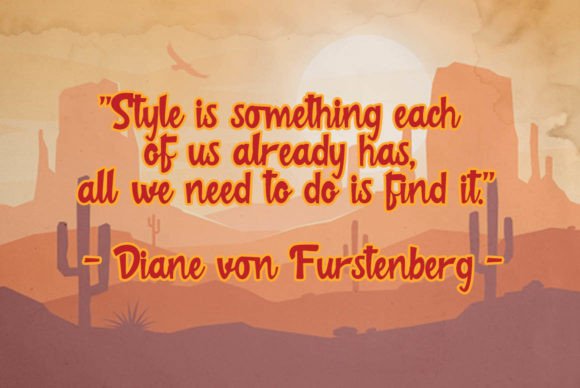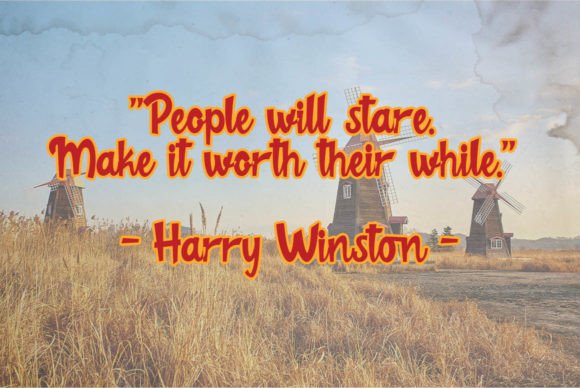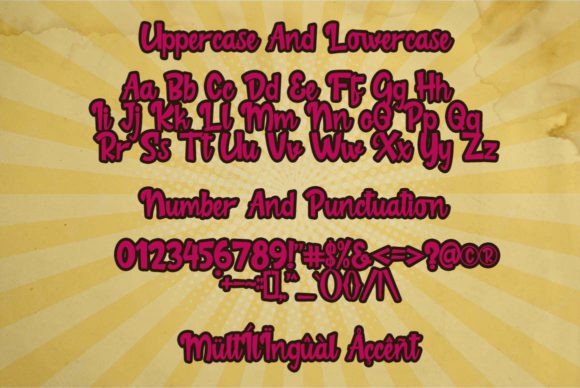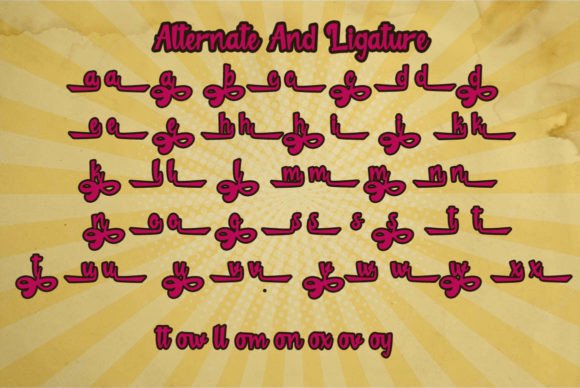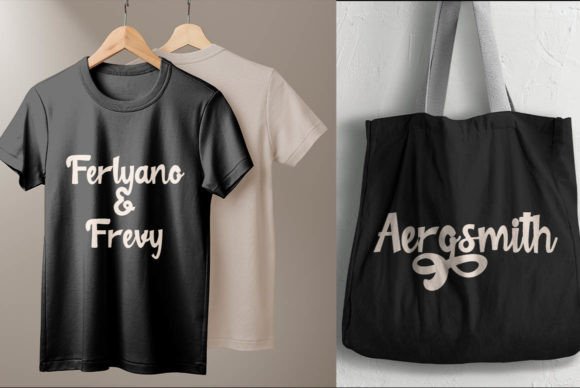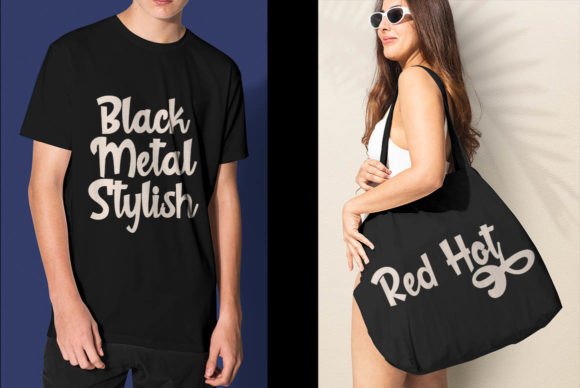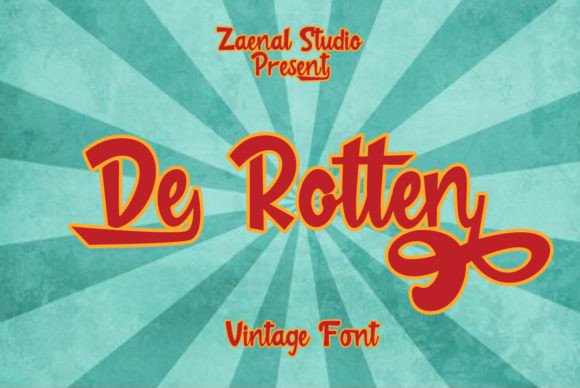
Introducing De Rotten: The Ultimate Retro Font for Creative Designs
Are you tired of using the same old fonts for your brand and logo designs? Look no further! De Rotten is a retro, unique, and fun handwritten font that’s perfect for adding a touch of personality to your creative projects. In this article, we’ll dive into the features and benefits of De Rotten, and explore how it can elevate your designs to the next level.
What is De Rotten Font?
De Rotten is a carefully crafted handwritten font that’s inspired by the nostalgia of retro typography. Its unique and quirky design makes it perfect for brands and logos that want to stand out from the crowd. The font is designed to be highly versatile, making it suitable for a wide range of applications, from branding and advertising to packaging and merchandise.
Key Features of De Rotten Font
- Retro and Unique Design: De Rotten boasts a distinctive retro aesthetic that’s sure to grab attention. Its unique design elements make it perfect for brands that want to add a touch of personality to their visual identity.
- Handwritten Style: The font features a natural, handwritten style that’s perfect for creating a personal and approachable brand image.
- Highly Versatile: De Rotten is suitable for a wide range of applications, from branding and advertising to packaging and merchandise.
Benefits of Using De Rotten Font
So, why should you choose De Rotten for your design projects? Here are just a few benefits of using this amazing font:
- Add a Touch of Personality: De Rotten’s unique design elements make it perfect for brands that want to stand out from the crowd and add a touch of personality to their visual identity.
- High-Quality Design: De Rotten is designed to high standards, ensuring that your designs look professional and polished.
- Perfect for Creative Projects: Whether you’re working on a branding project, creating a logo, or designing packaging, De Rotten is the perfect choice.
- Experiment with Glyphs and Swashes: The font’s PUA encoding makes it easy to access all of the glyphs and swashes. Experiment with different combinations to add a personal touch to your design.
- Use it for Branding and Logo Design: De Rotten is perfect for creating a unique and memorable brand image.
In conclusion, De Rotten is a retro, unique, and fun handwritten font that’s perfect for adding a touch of personality to your brand and logo designs. Its PUA encoding makes it easy to access all of the glyphs and swashes, and its highly versatile design makes it suitable for a wide range of applications. Whether you’re a designer, craft, or DIY enthusiast, De Rotten is a must-have font for your creative projects.